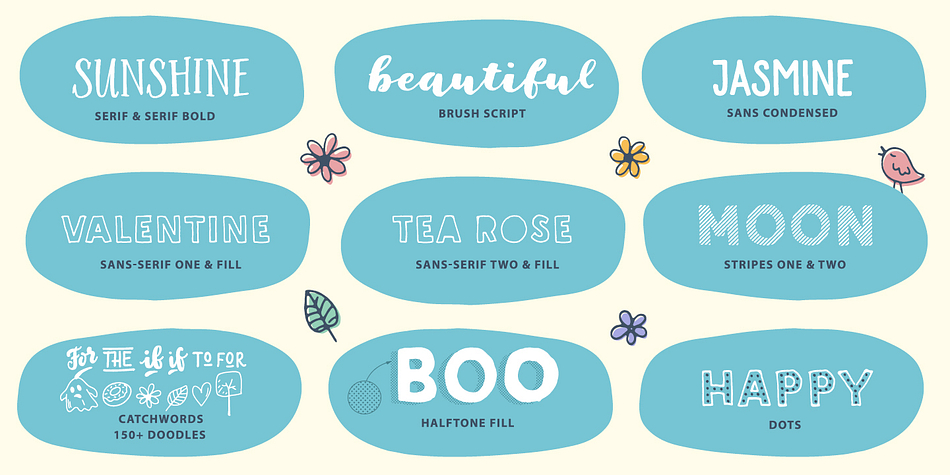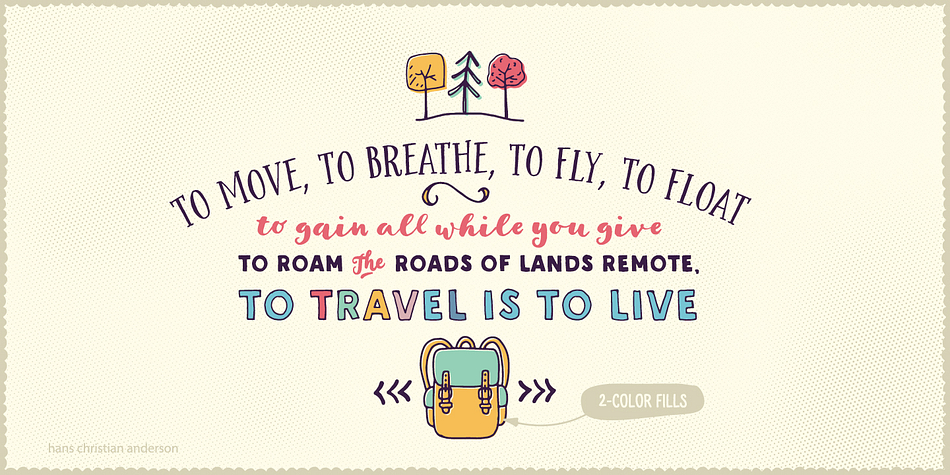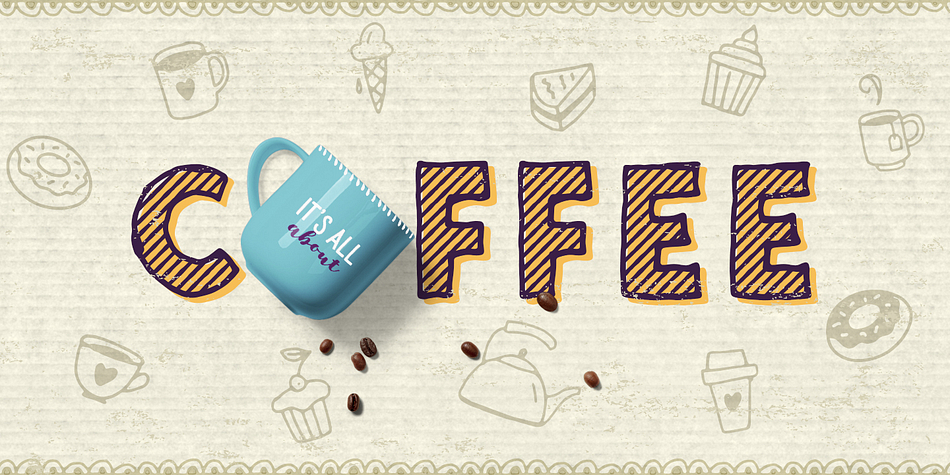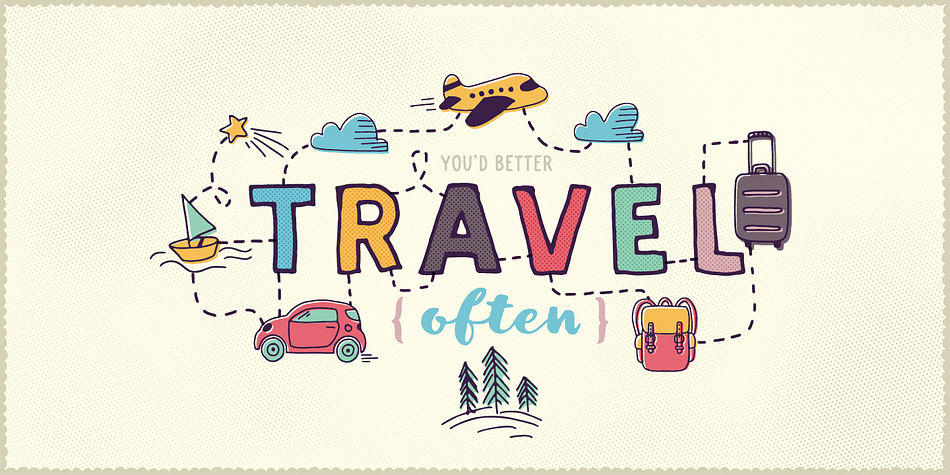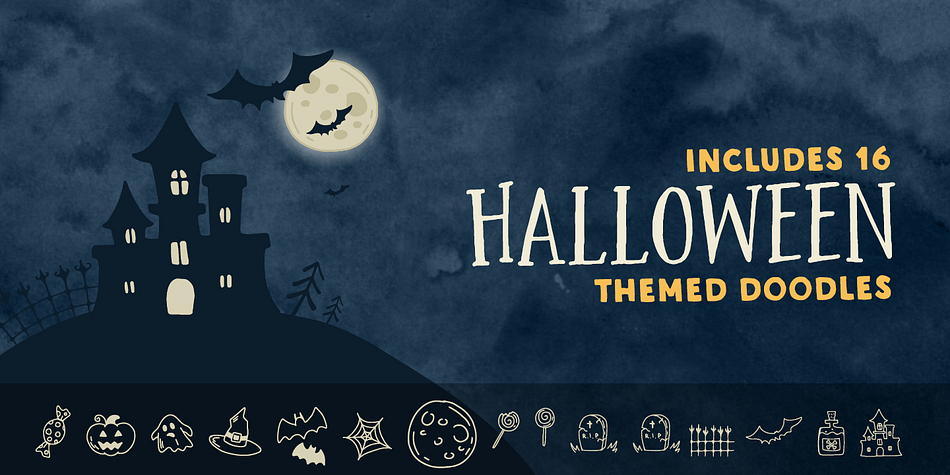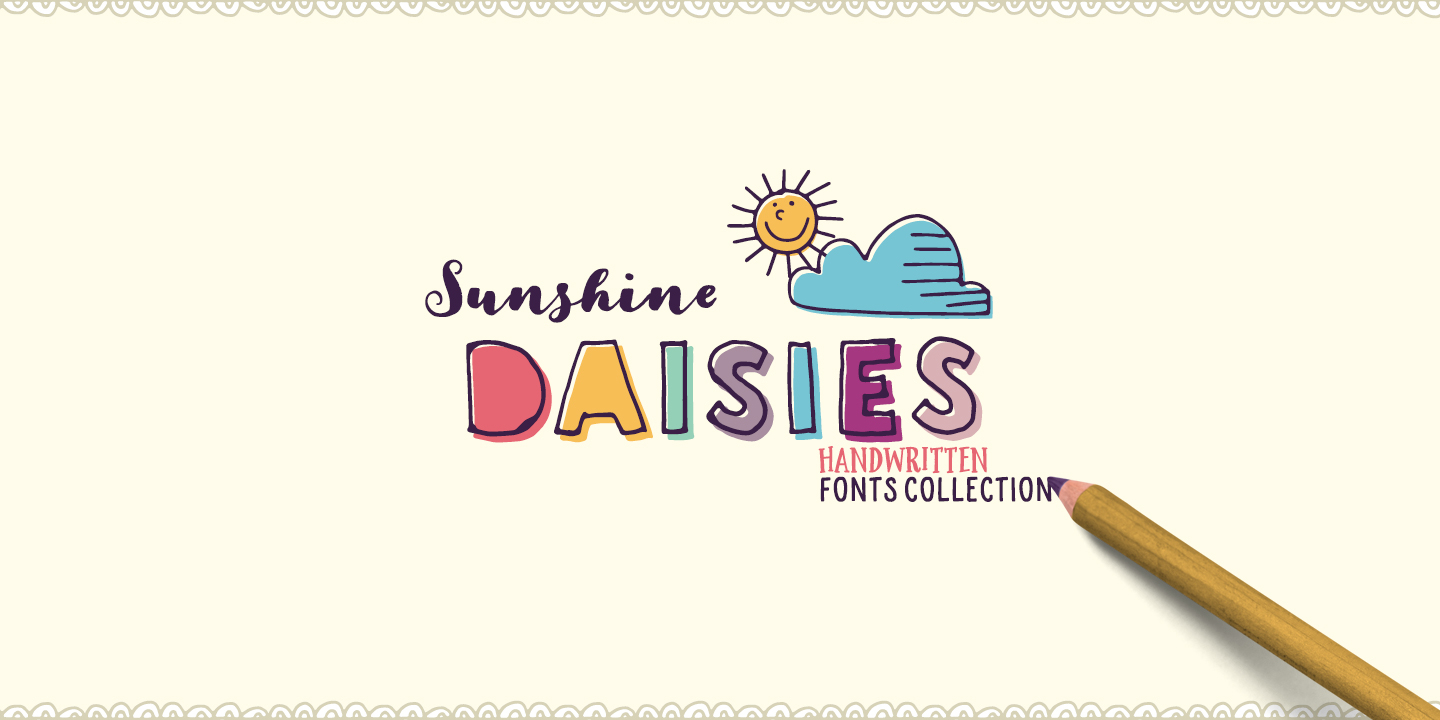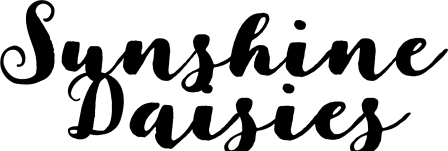
Sunshine Daisies is a multiple classification font family. This typeface has fifteen styles and was published by My Creative Land.
Sunshine Daisies Hand Lettered collection brings 15 handwritten fonts infused with fun and sunshine. All of them, including sans serif layered fonts, can be combined in many ways. The script is full of alternates and the layered font has a pseudorandom function embedded that means two letters will never look the same when placed next to each other.
To add even more fun the we’ve included a special Sunshine Daisies Extra font that has 150+ doodles with 2-color fills.
Perfect for quotes, t-shirts, book covers, posters, packaging projects, all Sunshine Daisies fonts are fully unicode mapped so you can use them in any application.